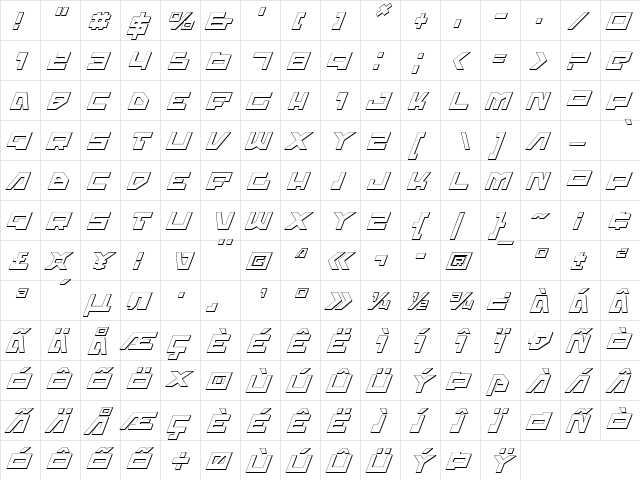
Trajia Shadow Italic Shadow Italic
Design Context for Trajia Shadow Italic Typeface
Trajia Shadow Italic is built around its visual character rather than neutral utility — its distinctive forms are designed to make an impression at display sizes. The slanted form adds forward momentum and visual energy.
Font Pairing: Pair with a clean neutral sans-serif for body copy to let Trajia Shadow Italic's character lead without overwhelming the composition.
Pro Tip: Use Trajia Shadow Italic exclusively at display sizes — it was designed to be seen, not read at length. Let a neutral companion handle body copy.